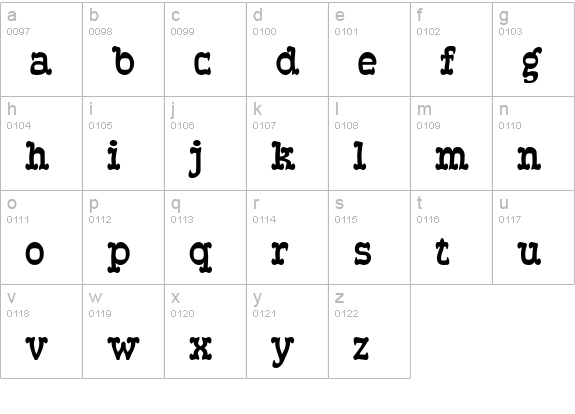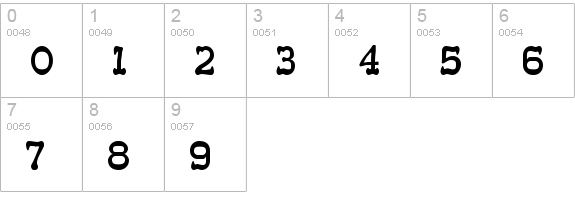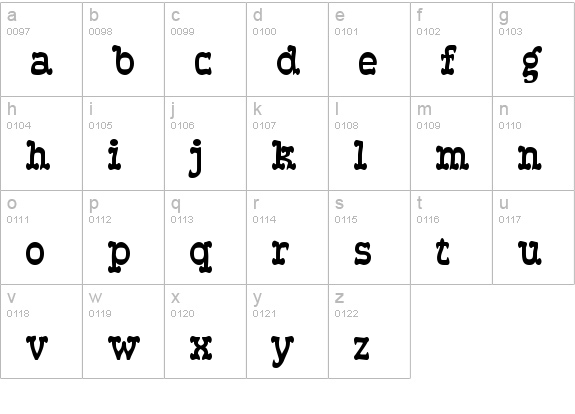
RoundUp Bold is a strong, high-contrast variant in the RoundUp typeface family \xE2\x80\x94 well suited to headlines, attention-grabbing titles, and strong calls-to-action.
Introducing RoundUp Bold font, a bold and eye-catching typeface that exudes confidence and modernity. With its strong and striking appearance, RoundUp Bold is perfect for headlines, branding, and designs that demand attention. The clean lines and sleek curves of this font make it versatile and easy to read, ensuring that your message will be conveyed effectively. And the best part? RoundUp Bold font is available for free download at FontsMarket.com. Now you can elevate your designs with this impressive font without breaking the bank. Whether you're working on a poster, logo, website, or any other project, RoundUp Bold font will add a touch of sophistication and style. Download it today and unleash your creativity with this exceptional typeface.